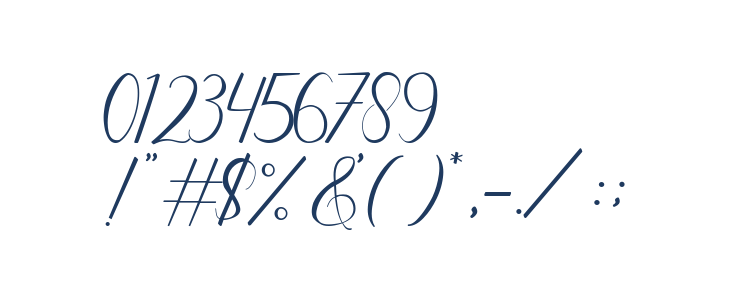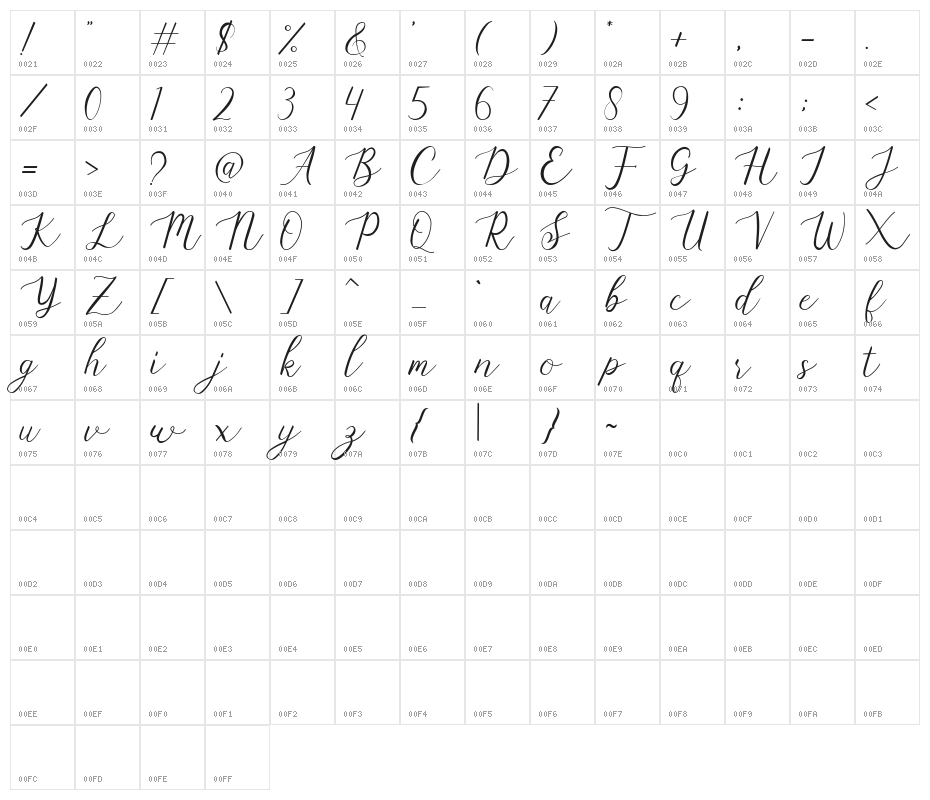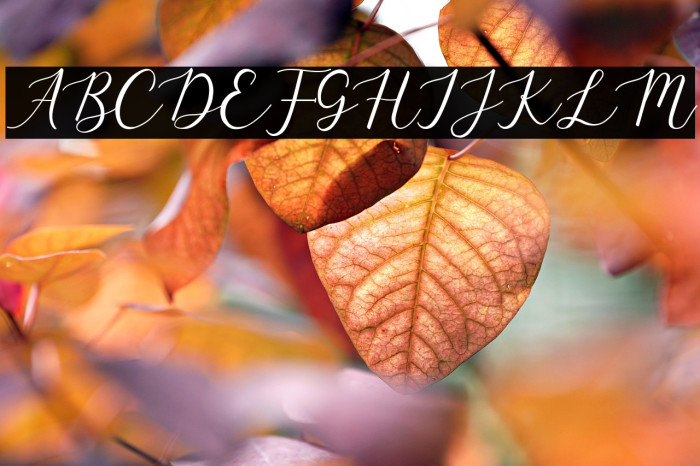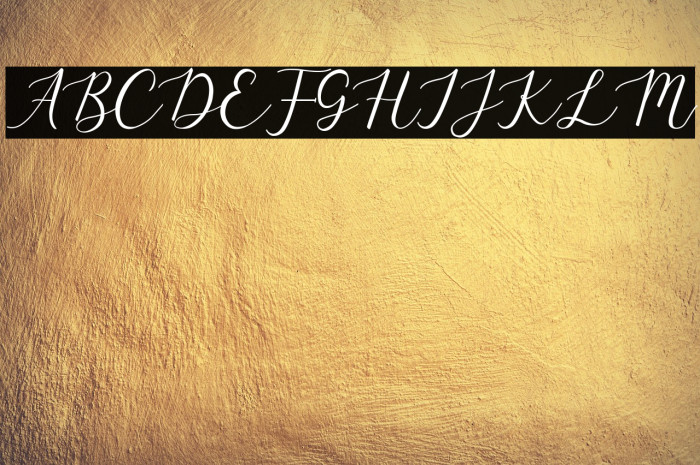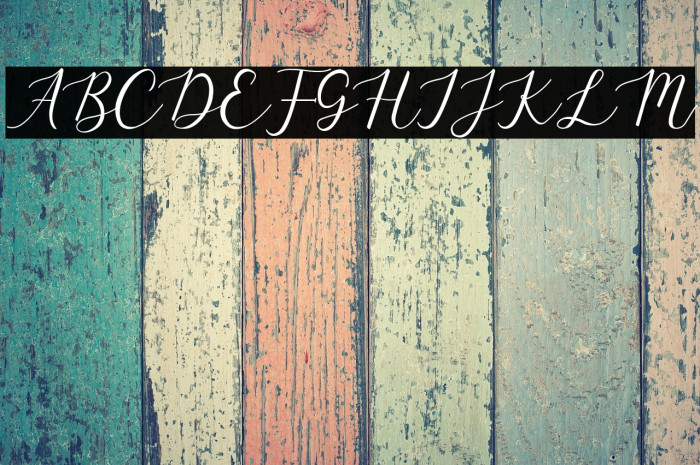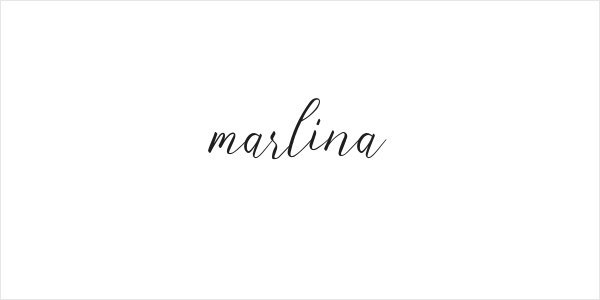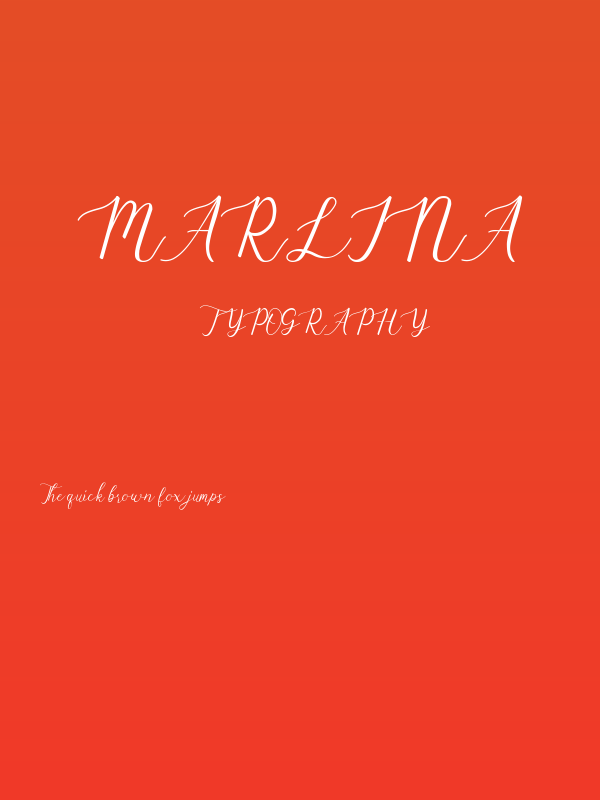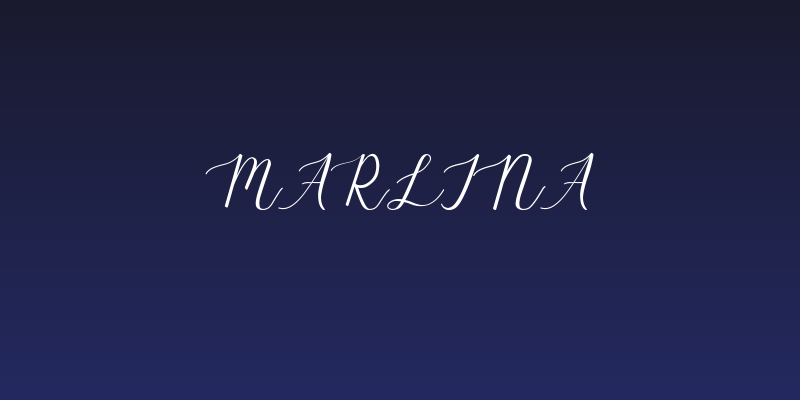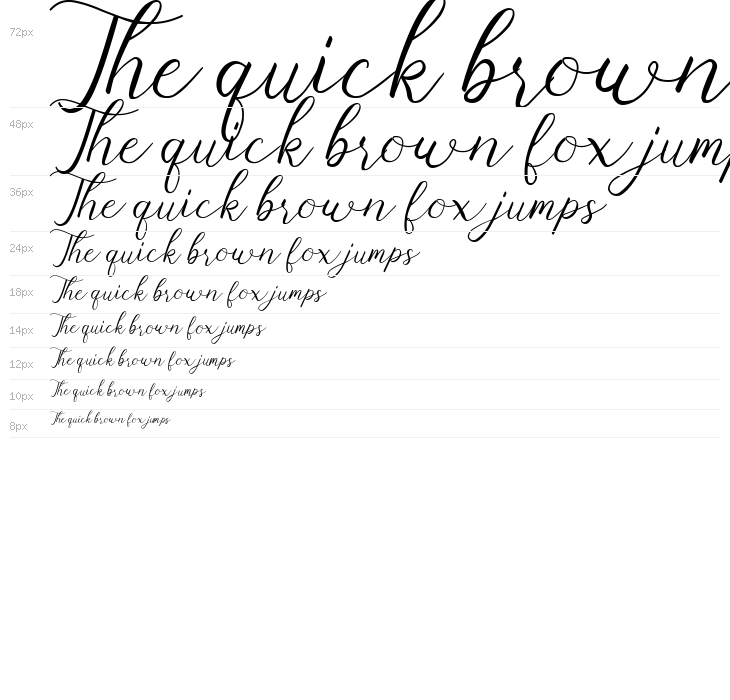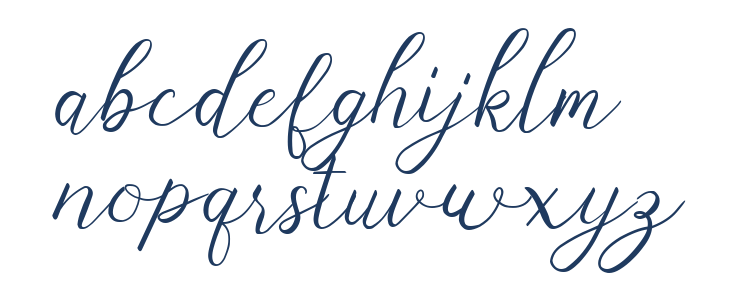
marlina Font
marlina Description
This elegant script font features flowing, cursive letters with a refined and sophisticated appearance. The uppercase letters are characterized by graceful loops and swirls, giving them a decorative flair. The lowercase letters maintain a consistent fluidity, with smooth connections between each character. The numerals are stylish and maintain the same cursive style, adding a touch of elegance to any numerical presentation. Special characters are thoughtfully designed to match the overall aesthetic, ensuring a cohesive look across all text. This font is perfect for projects that require a touch of class and sophistication, such as wedding invitations, formal event programs, or high-end branding materials.
Overall StyleElegant
Use CaseLogos, Invitations, Decorative text
Proposed ProjectsIdeal for wedding invitations, formal event programs, and luxury branding materials.